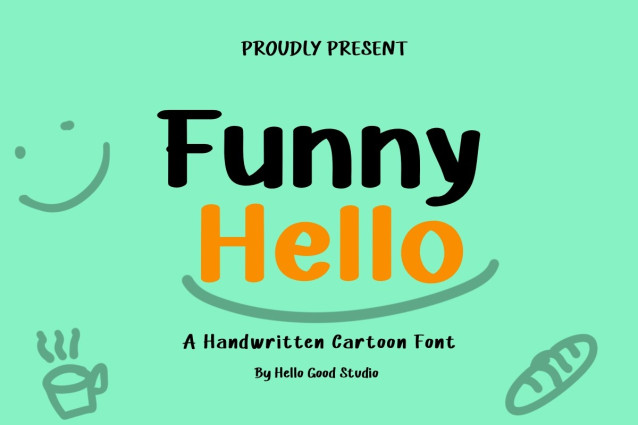
Funny Hello Font
Funny Hello Font a sweet and friendly handwritten font. Cute and fun, this font is ideal for writing wedding invitations, cards, or any other design that might need a fun touch!